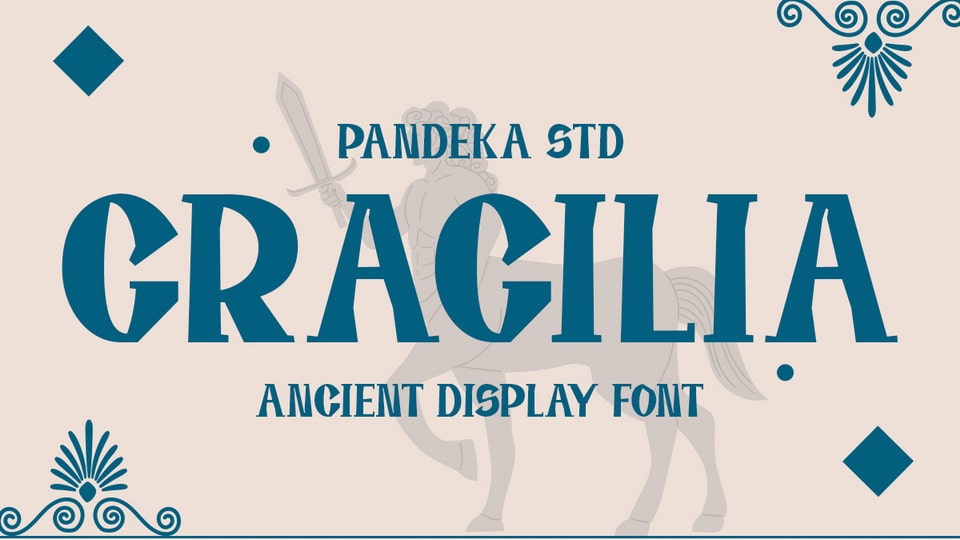
Download Gragilia font, a display typeface inspired by the beauty and grandeur of Ancient Greek culture. Its design echoes the elegance and strength of ancient inscriptions.